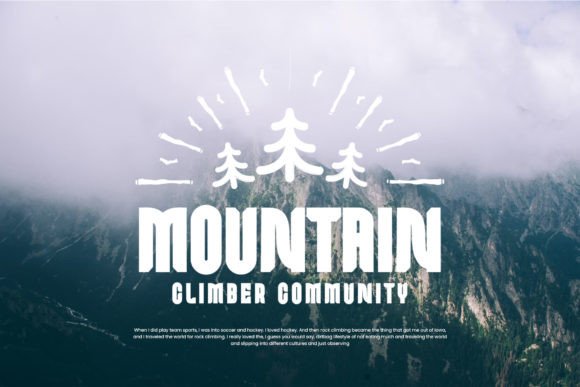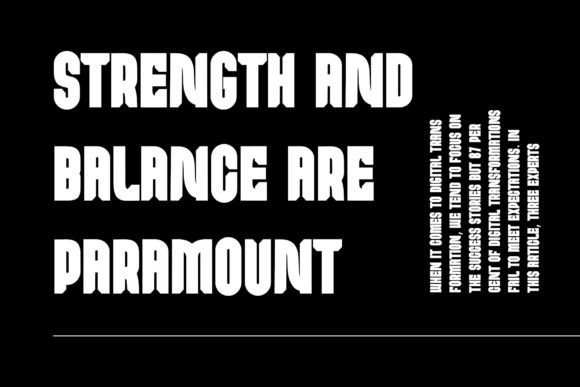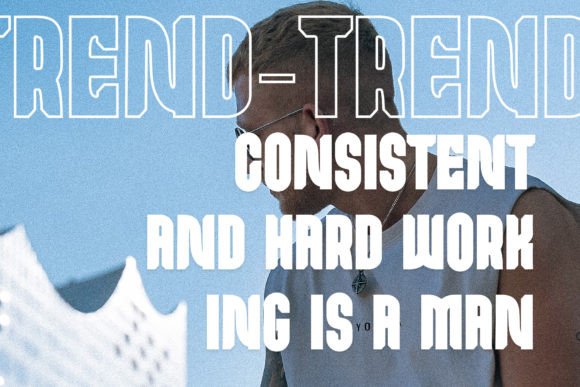
Introduction to Cercik Font
The shape is modern and unique and the writing style is very natural.
You can create many beautiful typographic designs in an instant like branding, web design and editorial, prints, crafts, quotes It’s great for logotypes, wedding invitations, romantic cards, labels, packaging, the spelling of names, and others.
Key Features of Cercik Font
Why Choose Cercik Font?
Cercik Font offers exceptional quality and versatility, making it a valuable addition to your design toolkit. Whether you’re creating for personal projects or commercial use, Cercik Font delivers professional results.